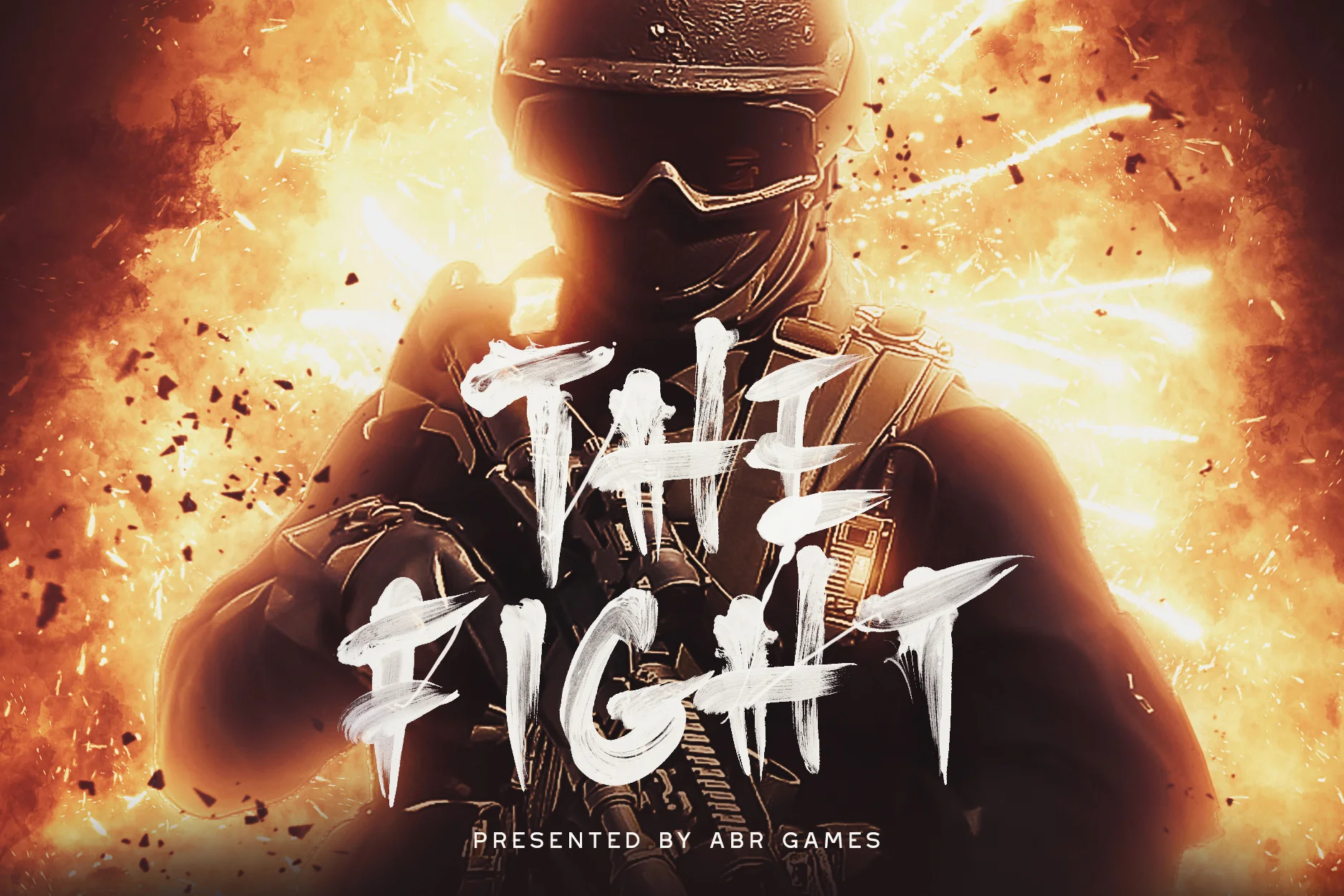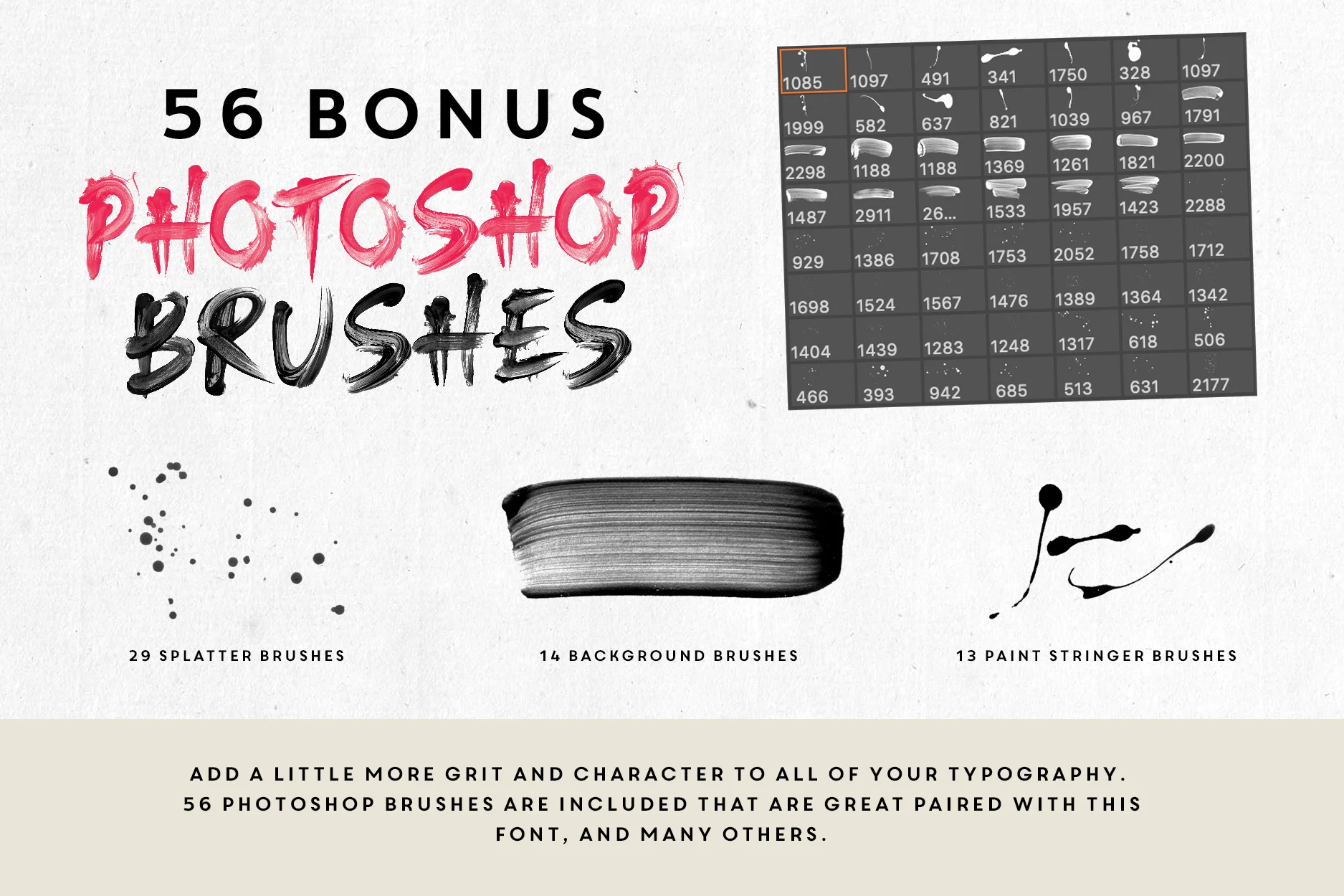
Total Rage SVG Font
Total Rage is a hyper realistic font full of hand painted letters that will take your design projects to a whole new level. This typeface is full of chaos and anger, and is great for magazines, billboards and website graphics. Total Rage uses the Opentype SVG format, making way for more authentic looking fonts and is sure to grab the attention of customers and designers alike.
Brushes - Each character in the OpenType-SVG font is also available as a brush. These brushes are great for users who cannot use the OpenType-SVG font, but want to get the exact same end results.
Swashes/Splatter Brushes - We’ve also included a bunch of stringers, background brushes and splatters to help spice up your designs.